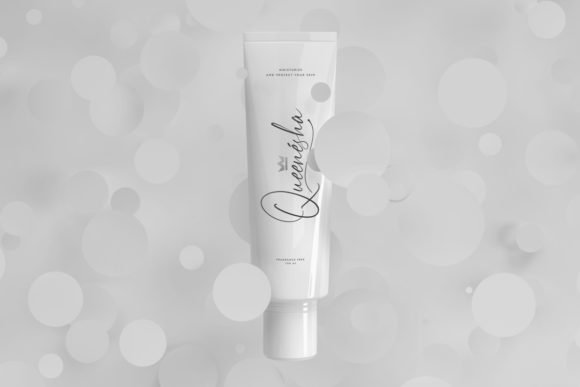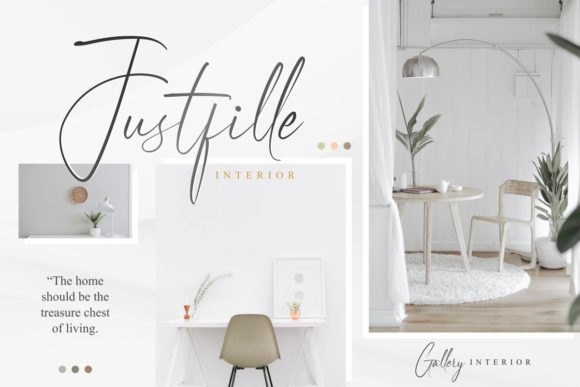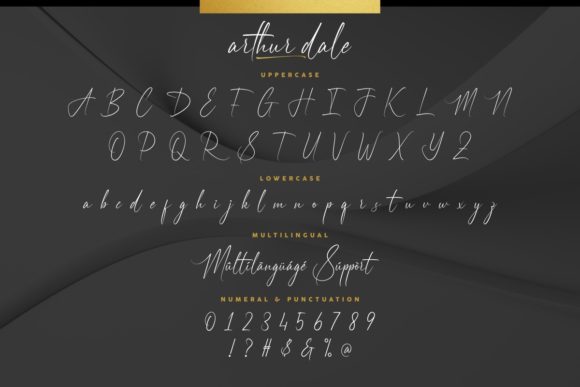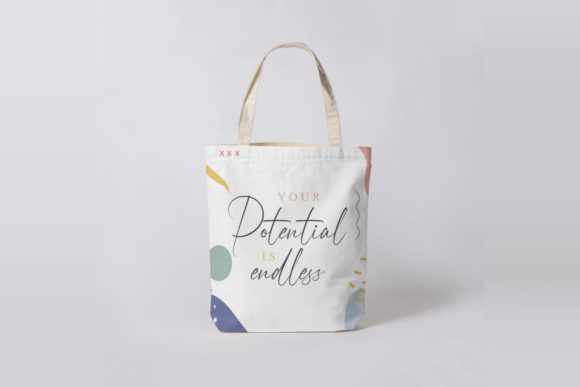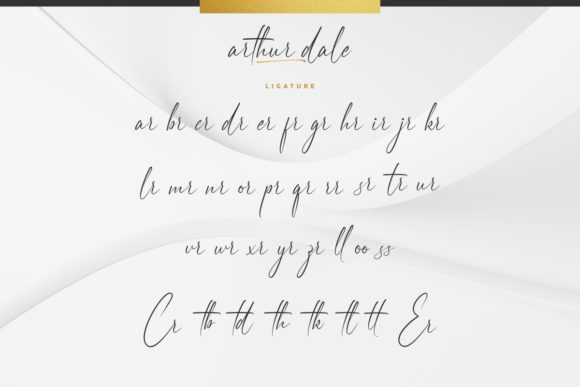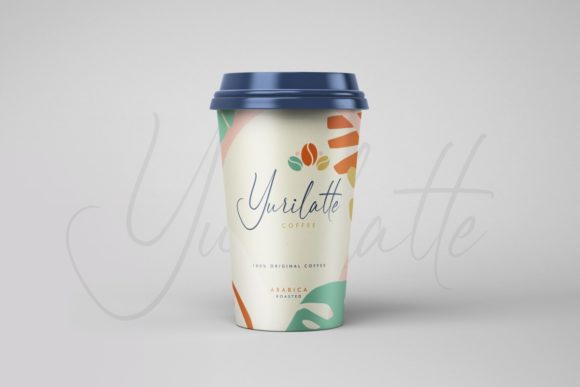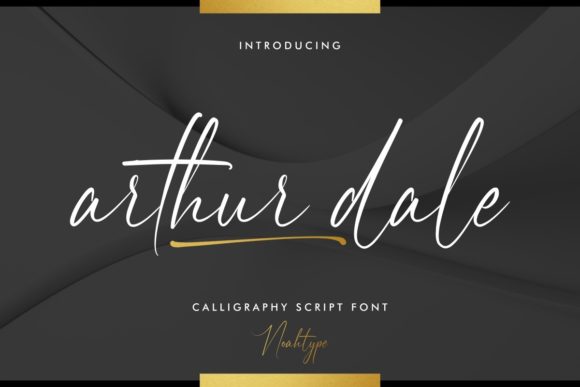
The Quest for the Perfect Font: Discovering Arthur Dale
I’ll never forget the design project that led me to discover the Arthur Dale font. I was working on a branding project for a luxury wedding planner, and I needed a font that exuded elegance, sophistication, and romance. I spent hours scouring font websites, but nothing seemed quite right – until I stumbled upon Arthur Dale. ✨
This beautiful, handwritten font has been a game-changer for my designs, and I’m excited to share it with you. In this article, we’ll dive into the world of Arthur Dale, exploring its features, how to use it, and some similar fonts you might love.
An Honest Review of Arthur Dale
- ✨ Delicate, elegant, and flowing design that adds a touch of sophistication to any project
- ✅ Well-balanced characters that work beautifully in a wide range of designs
- 🎉 PUA encoded, making it easy to access all the amazing glyphs and ligatures
- 💻 Highly versatile and pairs well with a variety of fonts and design styles
While Arthur Dale is an amazing font, there are a few things to keep in mind: 🤔
- ⚠️ Some users may find the font a bit too delicate for certain design projects, such as bold or edgy designs
- ⚠️ As with any font, it’s essential to test it in different contexts to ensure it works well for your specific project
The Story Behind Arthur Dale
Arthur Dale is a font designed with love and care by a talented typographer. While I couldn’t find much information on the designer’s background, it’s clear that they were inspired by the beauty of handwritten scripts and the elegance of luxury branding. 💫
The font’s creator aimed to craft a font that would be both versatile and elegant, suitable for a wide range of design projects. And I think they succeeded! 🎉
A: PUA (Private Use Area) encoding allows font creators to include additional glyphs and characters that aren’t part of the standard Unicode character set. This means that users can access a wider range of characters, ligatures, and stylistic alternates, making it easier to create unique and creative designs.